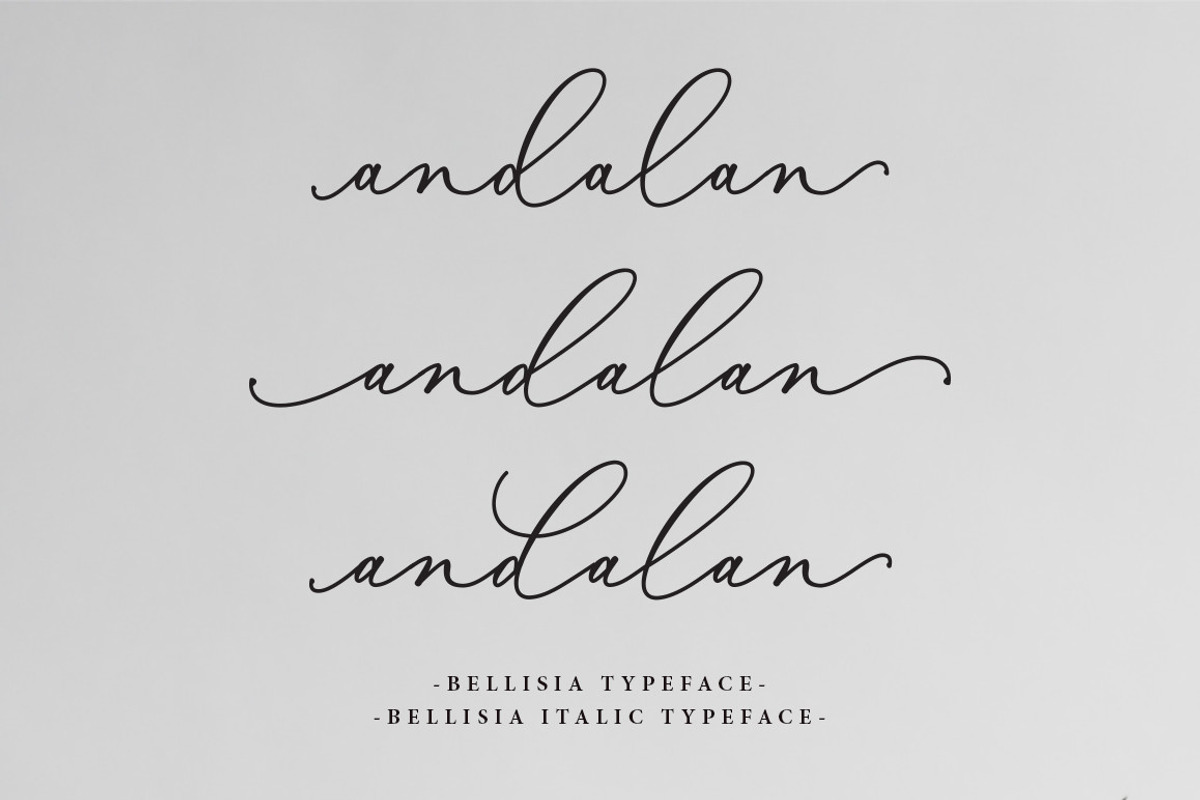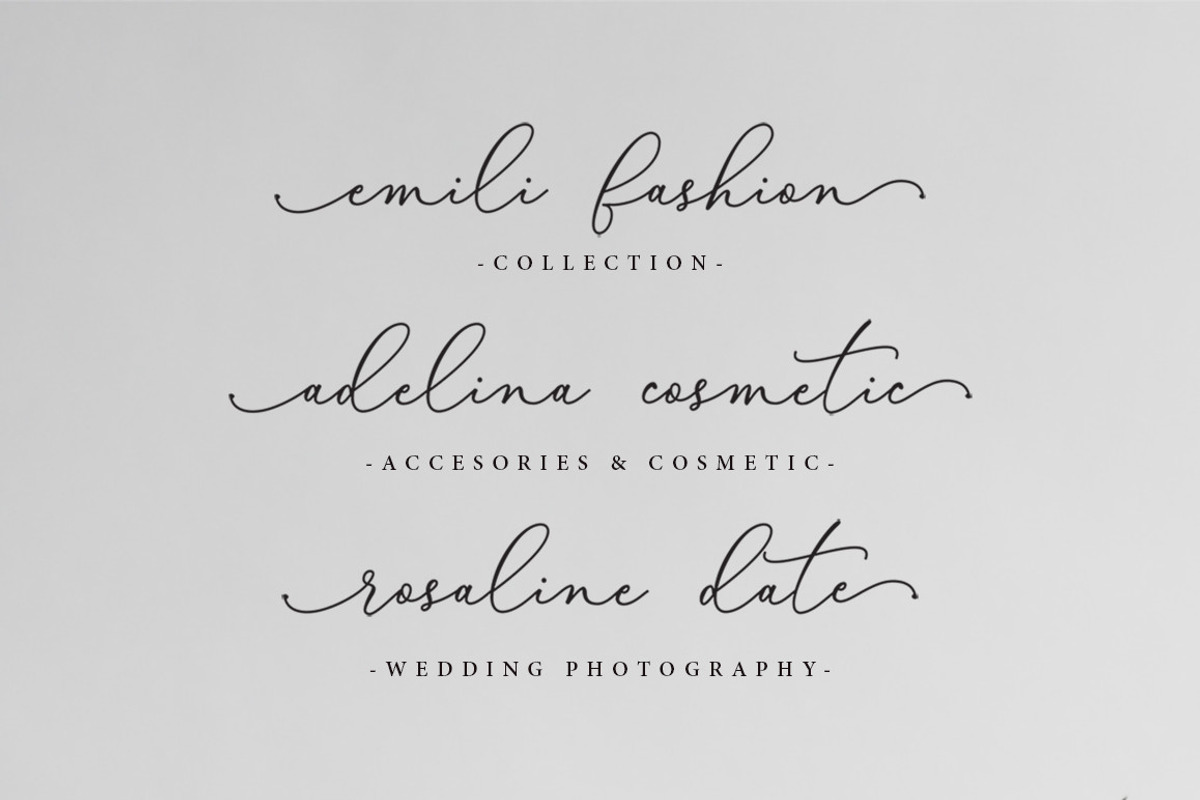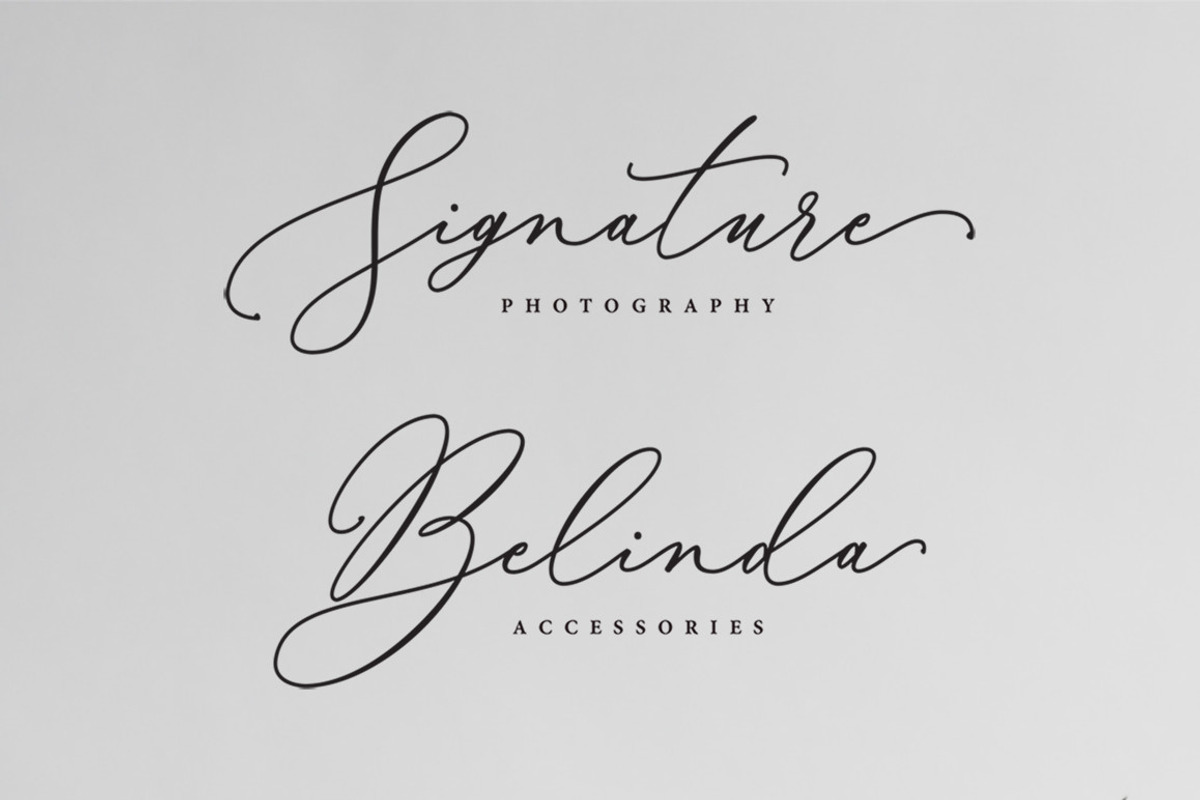
Bellisia is a modern calligraphy font. Bellisia a beautiful for logotype, website header, fashion design,wedding card design and any more.
It contains a full set of lower & uppercase letters, a large range of punctuation, numerals, and multilingual support.